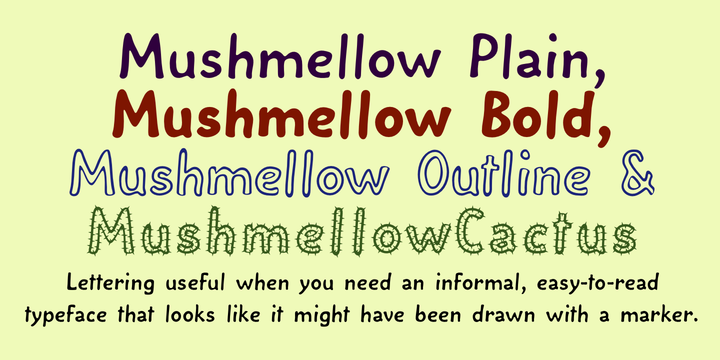
An informal, rather bold typeface without serifs, Mushmellow looks like it might have been written by hand.
In addition to the plain and bold weights, it comes with outline and “cactus” variants.